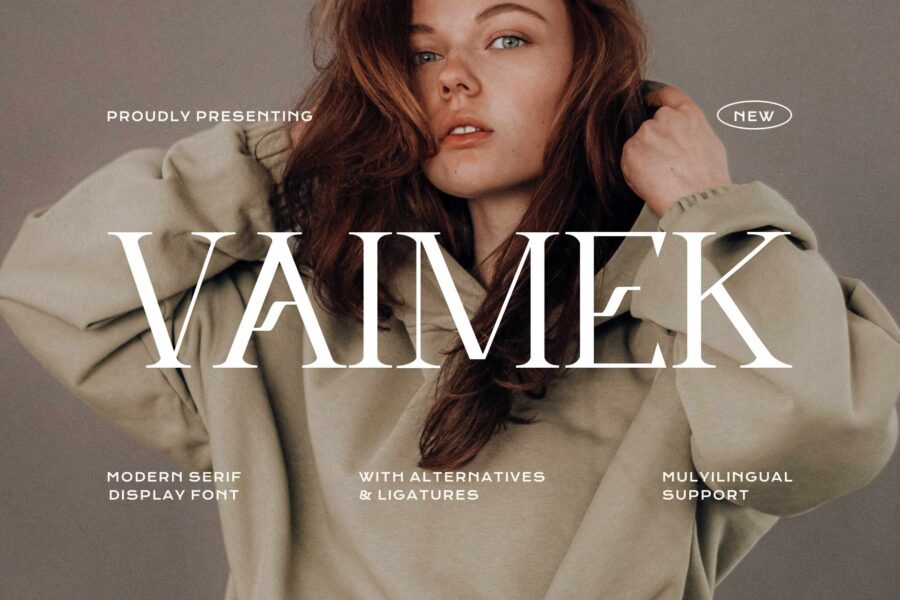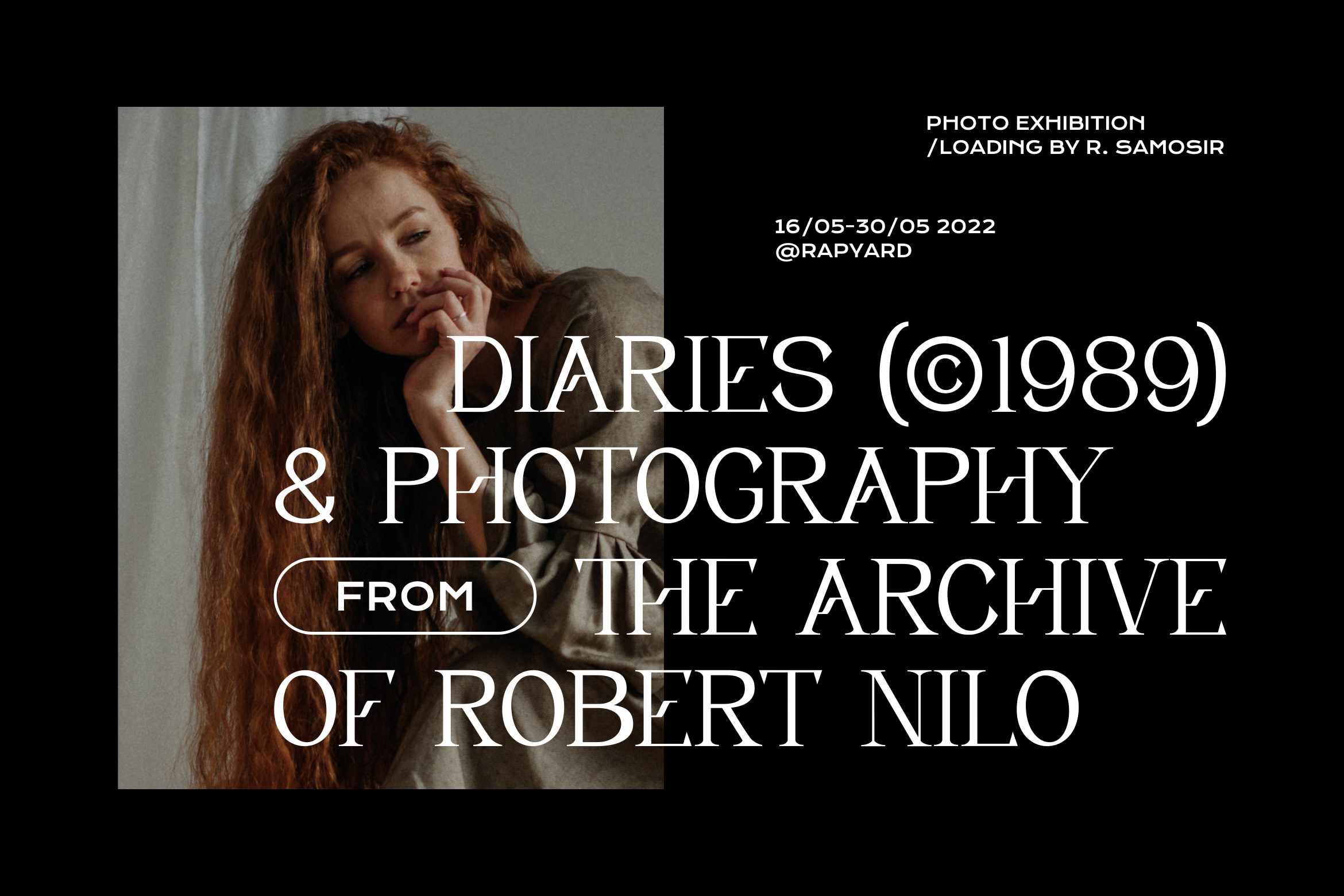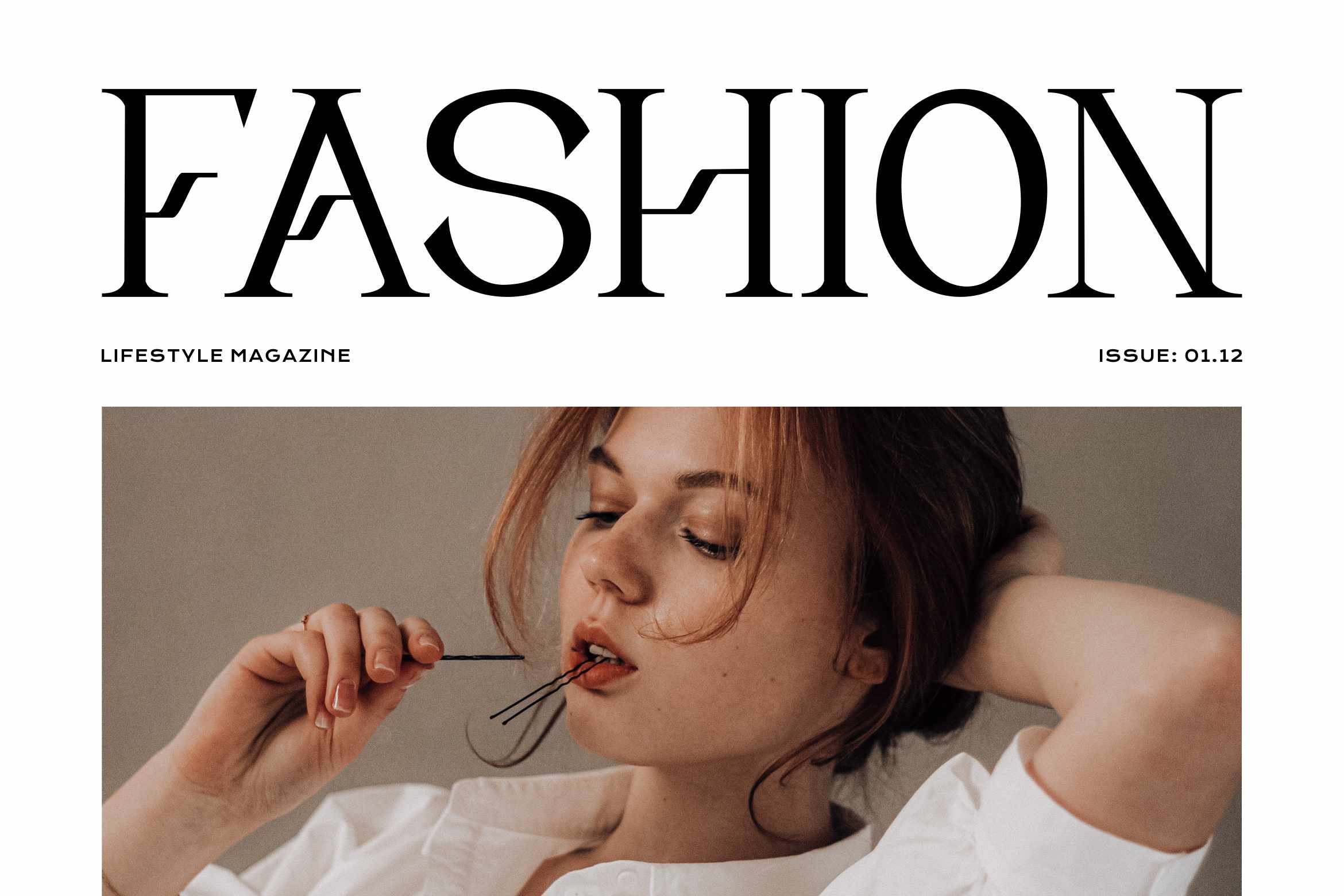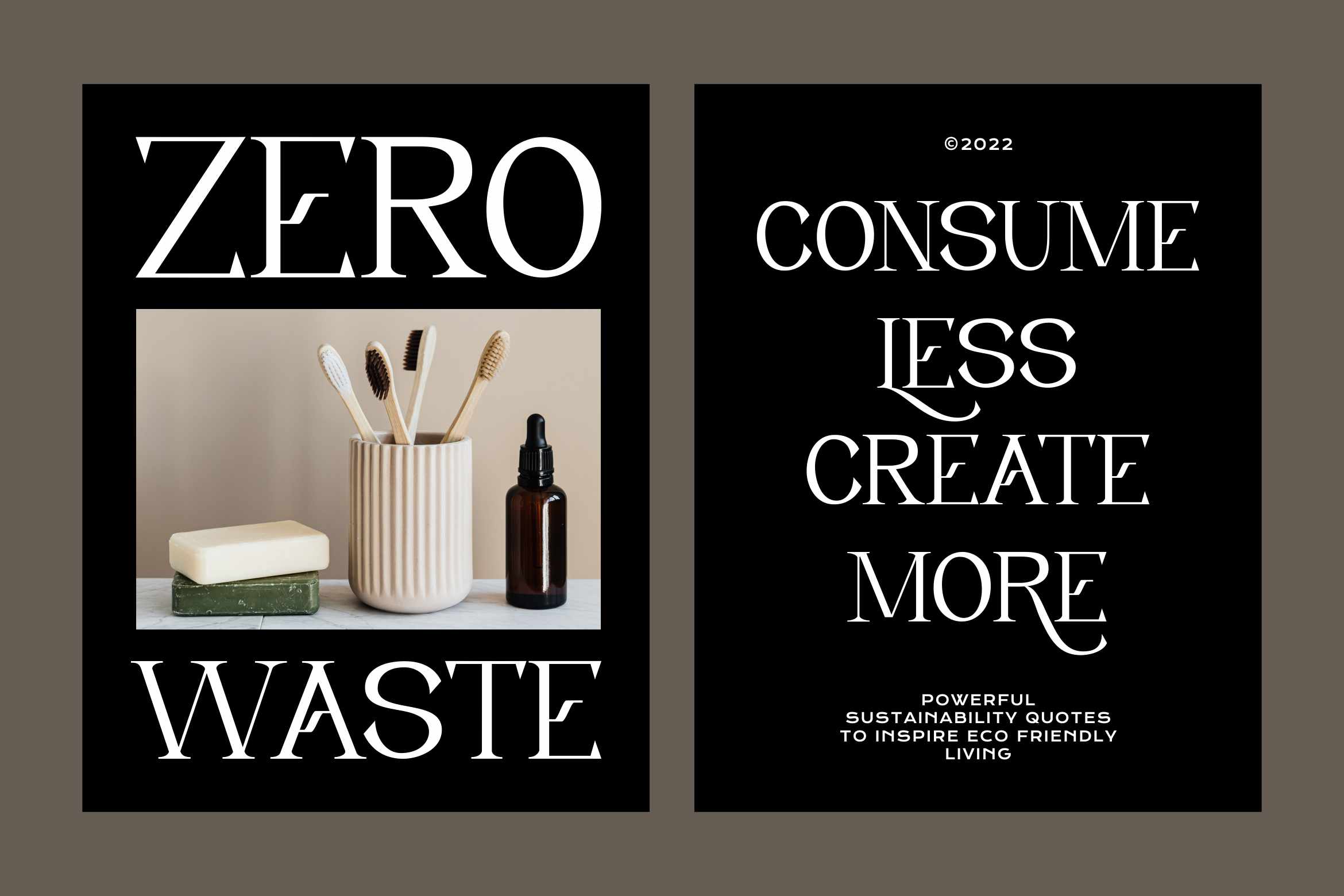
Vaimek is a modern serif display font that blends elegance and editorial sophistication with a contemporary twist. Featuring high-contrast strokes, sharp serifs, and distinctive stylistic alternates, Vaimek is crafted for visual impact. Its graceful curves and refined proportions make it ideal for fashion editorials, branding projects, luxury packaging, and upscale content that demands timeless aesthetics with a modern edge.
Complete with multilingual support and a versatile set of ligatures and stylistic alternatives, Vaimek gives designers the flexibility to create expressive layouts with personality and flair. Whether used in magazine headlines, posters, or social media graphics, this typeface adds a sense of refinement and artful detail to every composition.
Vaimek